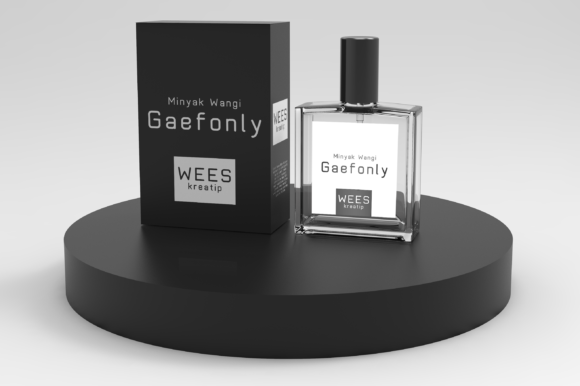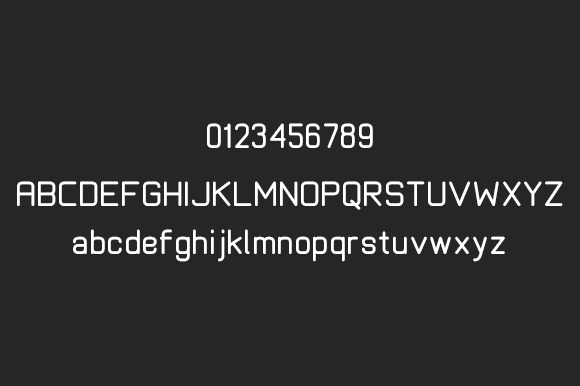
Have you ever been in the middle of a design project, and suddenly, you’re stuck on one thing: the font? You’re not alone! I recall working on a branding project for a client who wanted a modern, clean look, but I was struggling to find the right font to tie everything together. That’s when I stumbled upon Gaefonly, a minimal and neat sans serif font that has since become a staple in my design toolkit.
Gaefonly: A Designer’s Dream
Gaefonly is a versatile font that can easily be matched to an incredibly large set of projects. Its clean lines and minimalist aesthetic make it perfect for designers, crafters, and creative hobbyists looking to add a touch of sophistication to their work. Whether you’re working on a logo, brochure, or social media graphics, Gaefonly is sure to make your creative ideas stand out!
- ✨ Clean and minimalist design: Gaefonly’s simple yet elegant design makes it perfect for a wide range of projects.
- ✅ Highly legible: The font’s clear lines and well-spaced characters ensure that your text is easy to read, even at small sizes.
- 💡 Versatile: Gaefonly can be used for both digital and print projects, making it a great addition to your font library.
While Gaefonly is an excellent font, there are a few things to keep in mind:
- 🤔 Limited character variations: Gaefonly has a limited set of character variations, which may not be suitable for projects requiring a high level of customization.
- ⚠️ Not ideal for body text: While Gaefonly is highly legible, its minimalist design may not be the best choice for large blocks of body text.
The Designer Behind Gaefonly
While the true story behind Gaefonly’s creation may be unknown, it’s easy to imagine that the designer was inspired by the clean lines and minimalist aesthetic of modern design. Perhaps they were influenced by the work of renowned designers like Helvetica‘s Max Miedinger or Futura‘s Paul Renner. Whatever the inspiration, Gaefonly is a testament to the power of simple, effective design.
Q: Is Gaefonly suitable for body text?
A: While Gaefonly is highly legible, its minimalist design may not be the best choice for large blocks of body text. Consider using a serif font or a font with more character variation for body text.